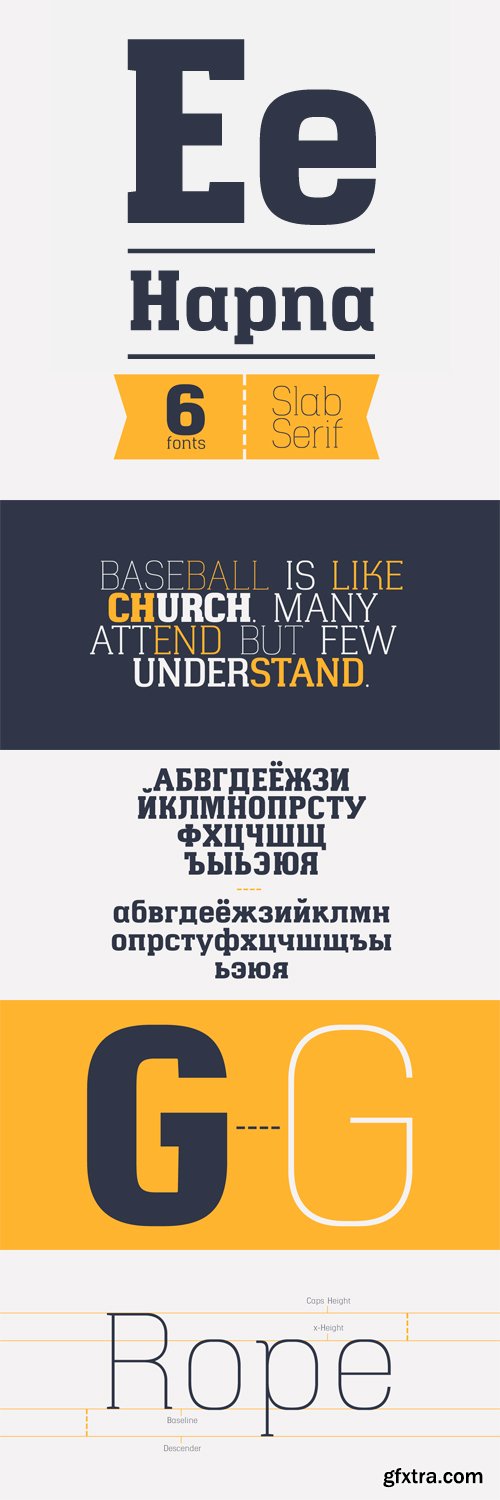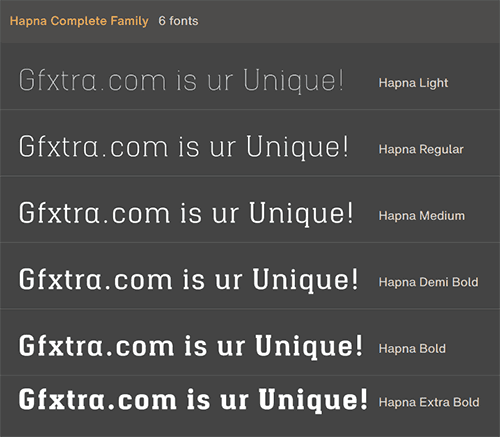
- Hapna is a geometric slab serif designed as an alternative to other slab style fonts available on the market. The typeface was originally released in January 2013 as a free monospaced single weight slab serif called Hapna Mono. This new design has gone through detailed changes to the characters to help define a more contemporary alternative take on the traditional slab serif style. Hapna was inspired by the baseball culture and the graphic language of the early 1950s. Details include 6 weights, 406 characters and open type features.